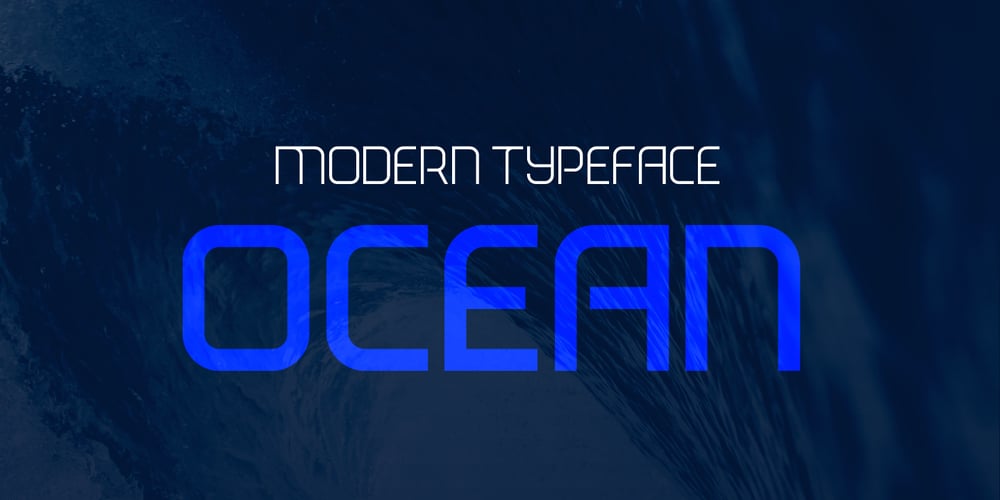
Ocean Font Family was designed by Serdar Öztürk and published by Serdar Ozturk. Ocean contains 8 styles and family package options. Ocean font offers you unique experiences for your designs. It reflects the essence of your designs thanks to its distinctive writing lines and original style. You can use Ocean font character in every field, and you can use it in magazine and catalog cover designs, poster designs.